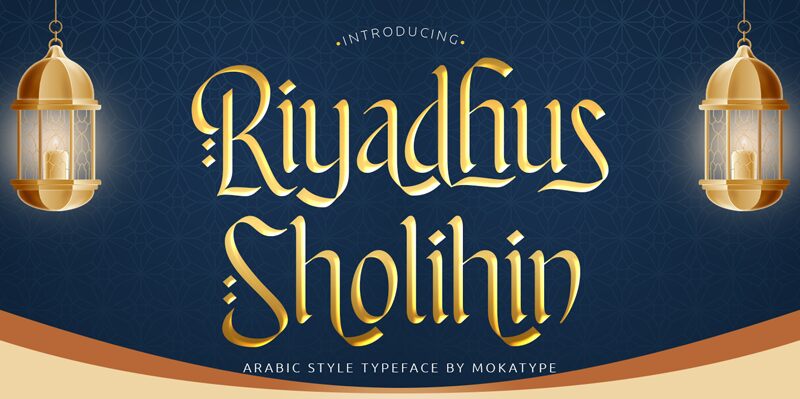
Riyadhus Sholihin font by Moka Type Studio is a free font exhibiting curated structures in a polished sophisticated manner. The alphabet displays beautiful decorative ornaments incorporated in the character forms resembling traditional artistic works. The structure and detailing within each character hold valuable inspiration from culture, making the font suitable for connected contexts. The complexity and professional execution of each letter and symbol lead to a historical and elegant outcome.
Riyadhus Sholihin is perfect for marketing projects, shop signboards, magazine covers, product packaging, greetings cards, wedding invitations, websites, social media headlines, book covers, and kid’s infographics. Files can be easily rendered with different graphic editors such as Photoshop, Illustrator, and CorelDraw. Beginner designers can use PowerPoint and Word as well.